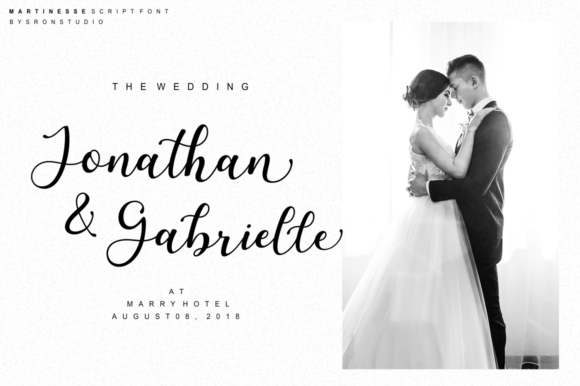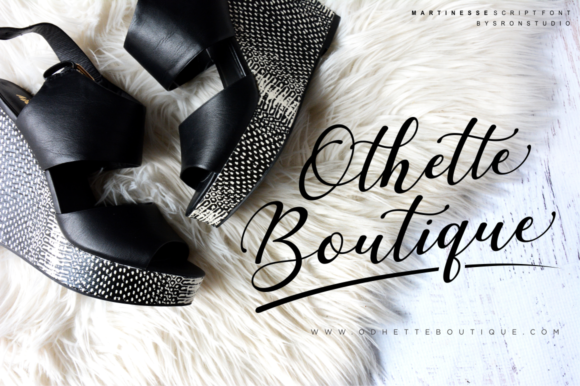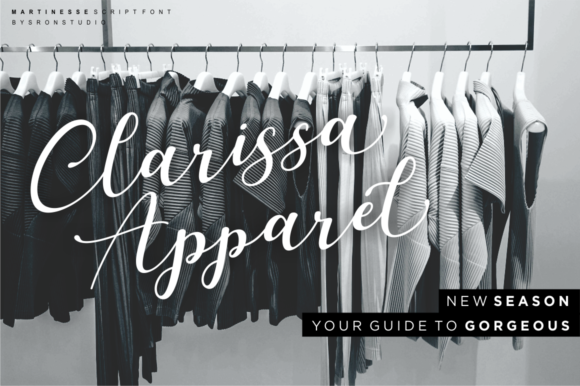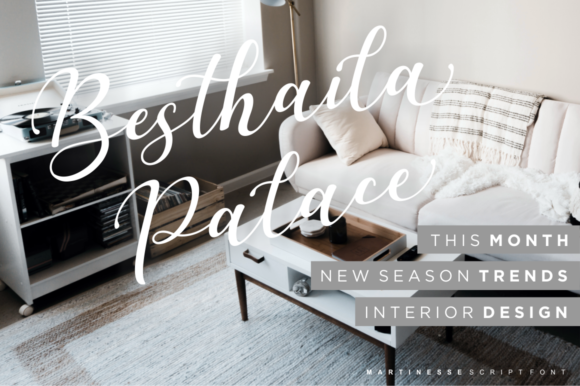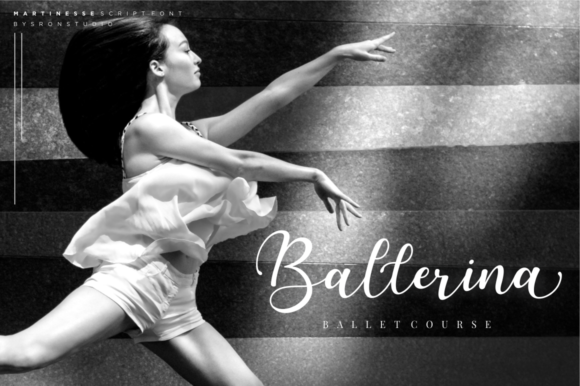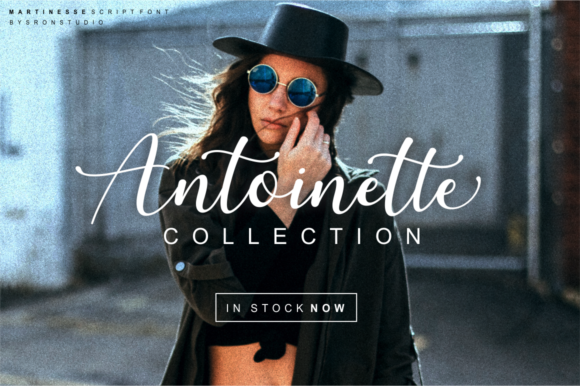
Introduction to Martinesse Script Font
Martinesse Script is a modern, fresh script with elegant alternates that make this font perfect for a large range of designs.
It works great for invites, branding, stationary design, blog design, advertising and much more .
Martinesse Script Font offers exceptional quality and versatility, making it a valuable addition to your design toolkit. Whether you’re creating for personal projects or commercial use, Martinesse Script Font delivers professional results.